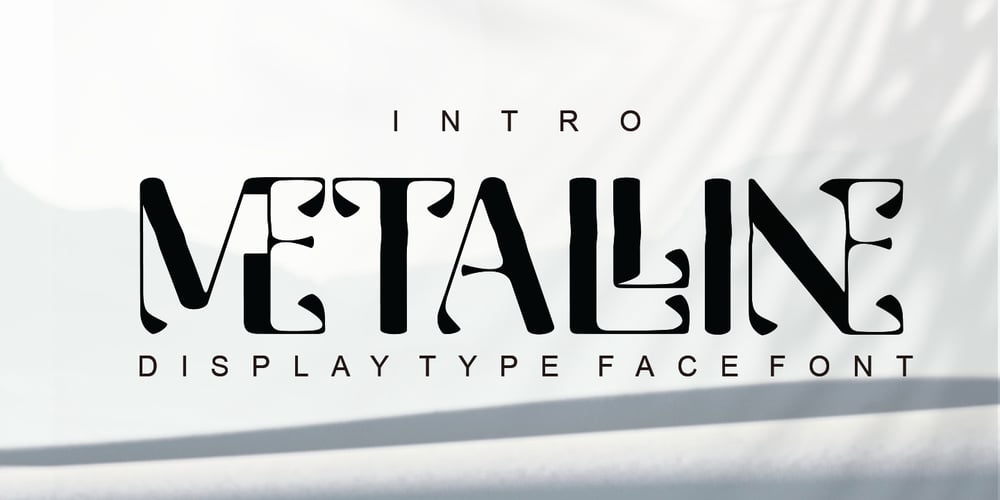
Metalline Font Family was designed by Nasrullah and published by Sulthan Studio. Metalline contains 1 styles and family package options. Metalline is a modern font typeface that is easy to remember and stylish. A slight wave in uppercase ( alternates ) Ligatures and alternates in lowercase make this font even more unique. It is a mix between classic serif and sans serif.Metalline comes with uppercase, lowercase, numbers, and punctuation marks and language support. This font is perfect for fashion-related branding or editorial design and features both masculine and feminine qualities.HOW TO ACCESS ALTERNATE CHARACTERSOpen glyphs panel:In Adobe Photoshop go to Window – glyphsIn Adobe Illustrator go to Type – glyphs